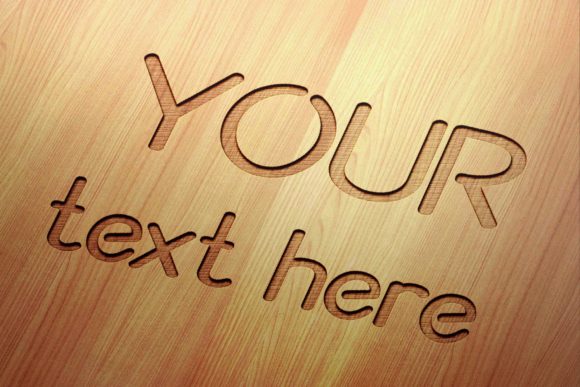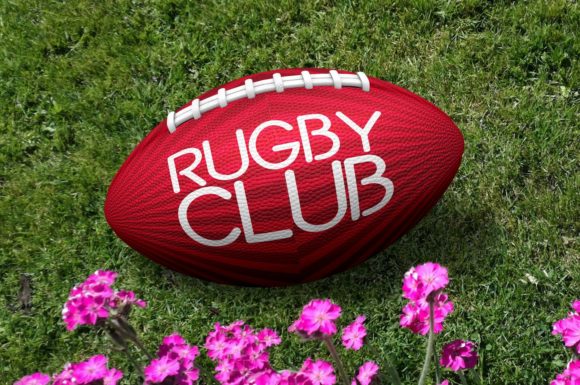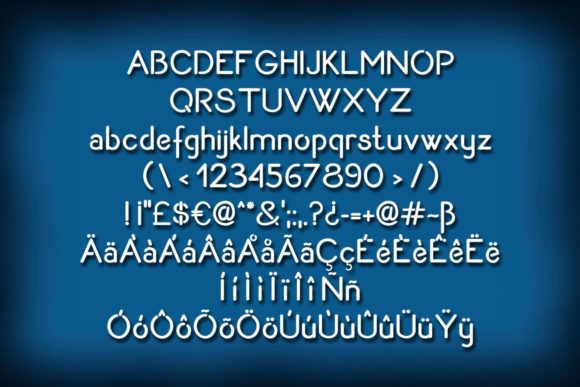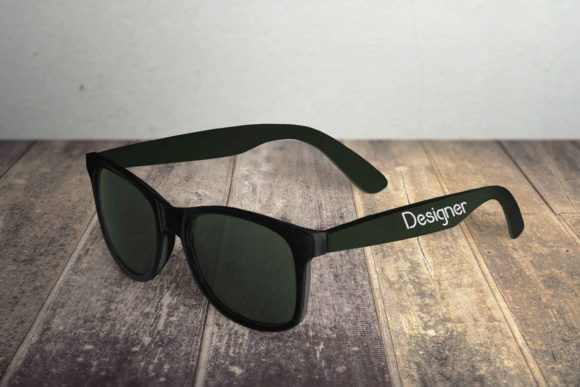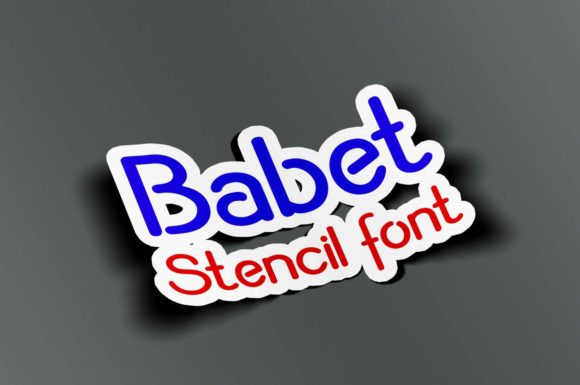
Babet Font: A Unique Stencil Font for Designers and Crafters
Babet is a carefully crafted stencil font without closed loops on the characters. This distinctive feature makes it an excellent choice for designers and crafters looking for a font that offers a unique twist on traditional stencil fonts. In this article, we’ll explore the characteristics, uses, and benefits of the Babet font, and why it’s becoming a popular choice among designers and crafters.
What is Babet Font?
Babet font is a stencil font designed with a specific focus on functionality and aesthetics. Unlike traditional stencil fonts, Babet’s characters do not have closed loops, giving it a distinctive look that sets it apart from other fonts in its category. This design choice makes Babet highly versatile and suitable for a wide range of applications, from crafting and DIY projects to digital design and typography.
Characteristics of Babet Font
The Babet font boasts several key characteristics that make it an attractive choice for designers and crafters:
- Open-loop design: The absence of closed loops on characters gives Babet its unique appearance and makes it highly legible.
- Stencil font: Babet retains the classic stencil font look, making it perfect for projects that require a stencil-like appearance.
- Versatility: The font’s design allows it to be used in various contexts, from digital designs to physical crafting.
- Legibility: Despite its stylized design, Babet remains highly legible, making it suitable for both headings and body text.
Uses of Babet Font
The unique characteristics of Babet font make it suitable for a variety of uses:
- Crafting and DIY Projects: Babet’s stencil design makes it perfect for crafters who work with materials like wood, metal, or paper. It’s ideal for creating signs, labels, and decorative items.
- Digital Design: Designers can use Babet in digital projects such as posters, flyers, and social media graphics to add a distinctive touch.
- Typography: Babet can be used in typographic artworks, quotes, and phrases to add a stylized and modern look.
- Branding: Businesses looking for a unique and memorable brand identity can use Babet in their logos, packaging, and marketing materials.
Benefits of Using Babet Font
There are several benefits to using Babet font in your projects:
- Uniqueness: Babet’s open-loop design sets it apart from other stencil fonts, ensuring your projects stand out.
- Readability: The font’s clear and legible design makes it easy to read, even at smaller sizes.
- Flexibility: Babet can be used across various mediums, from print to digital, making it a versatile addition to your font library.
- Aesthetic Appeal: The stylized look of Babet adds a touch of modernity and sophistication to any project.
Tips for Using Babet Font Effectively
To get the most out of Babet font, consider the following tips:
- Combine with Other Fonts: Pair Babet with complementary fonts to create visual interest and hierarchy in your designs.
- Experiment with Colors: Babet looks great in various colors and textures, so don’t be afraid to experiment with different color schemes.
- Adjust Letter Spacing: Adjusting the letter spacing can help improve readability and aesthetics, especially in larger blocks of text.
- Use in Large Sizes: Babet’s unique design shines in large sizes, making it perfect for headlines, posters, and signage.
Babet font is a unique and versatile stencil font that offers a fresh take on traditional stencil designs. Its open-loop characters, combined with its legibility and aesthetic appeal, make it an excellent choice for designers and crafters alike. Whether you’re working on a digital project, crafting signs, or creating typographic art, Babet font is sure to add a distinctive touch to your work. With its wide range of applications and benefits, Babet is a valuable addition to any designer’s or crafter’s toolkit.